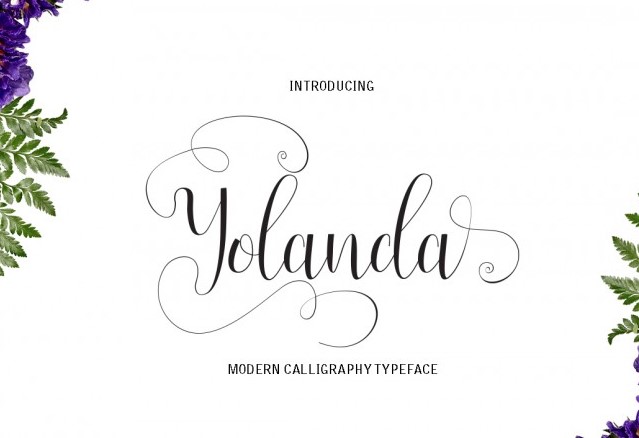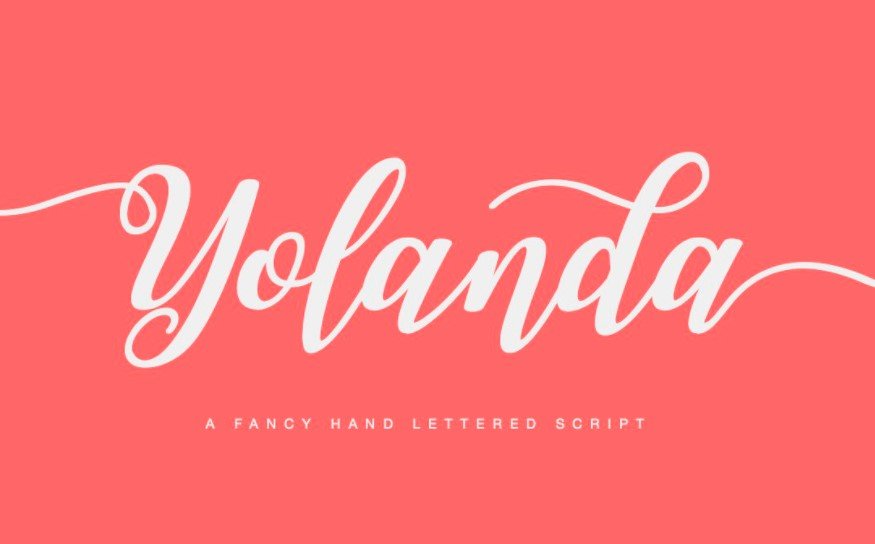
Yolanda Script Font, available for free, boasts a distinctive calligraphic style with each letter featuring its own unique design while maintaining consistency. It offers a sleek baseline and a contemporary texture, making it ideal for large-scale projects.
The scripted typeface has varieties usages in almost all types of projects. The font is suitable to use in websites and perfectly fine to use as pairing with the combination of panton font.
View Of Yolanda Script Font
You can view in the image above that the typeface has an awesome scripted texture that is best for lots of projects and designs. It contains great calligraphic features that can help you in making theme designs, banners designers, and other interactive ads designs.
The font is perfectly fine to work with the combination of ailerons font as a pairing because of its awesome look, lots of designers loved this great scripted font.
| Designer | Letterara |
What Type of Font Is Yolanda Script?
The Yolanda Script Font is the famous and amazing typeface which was product of Letterara.